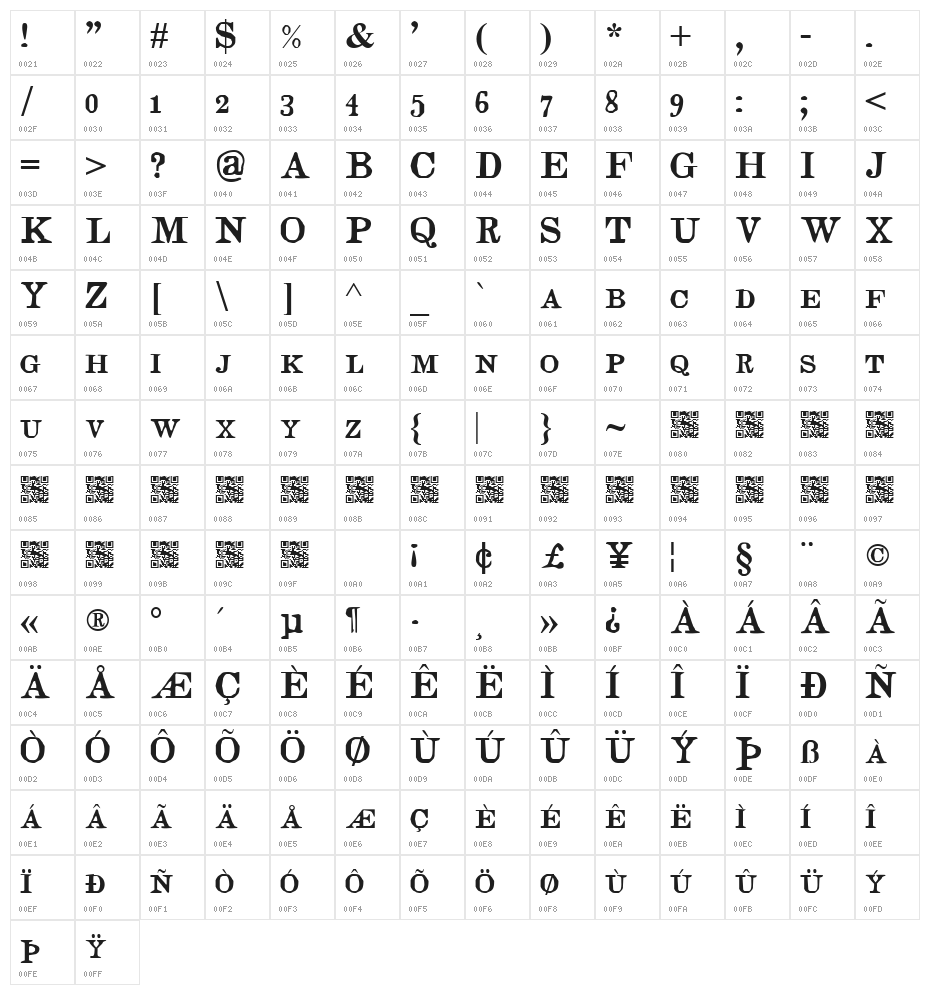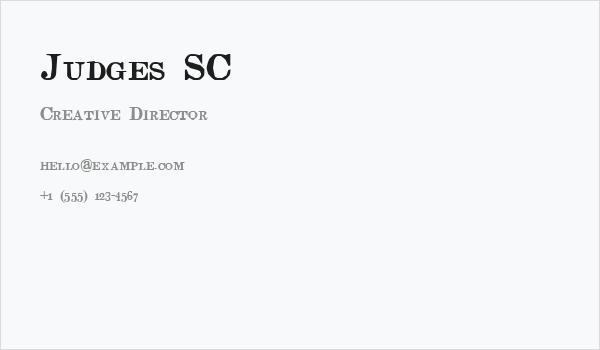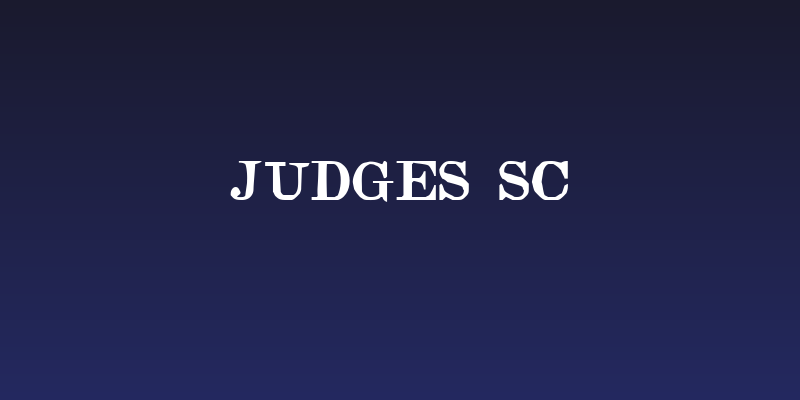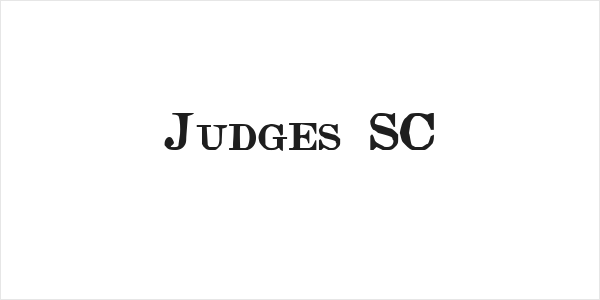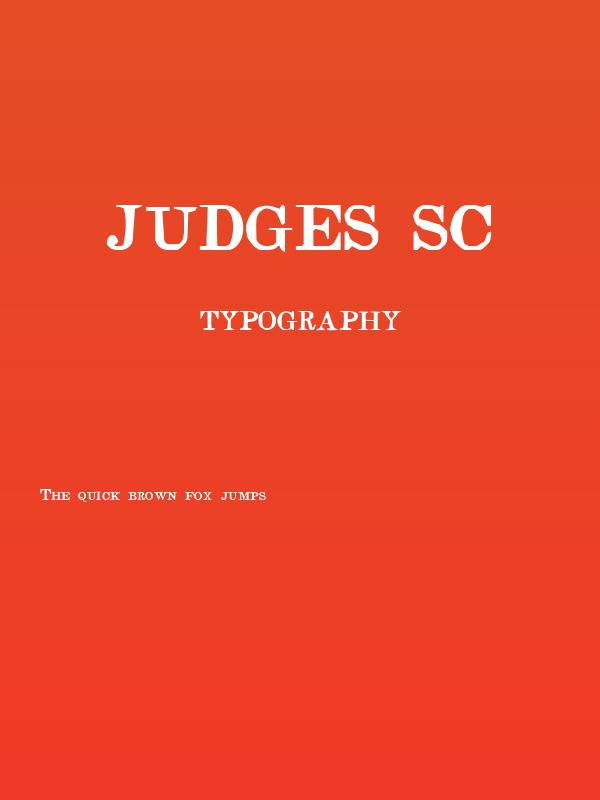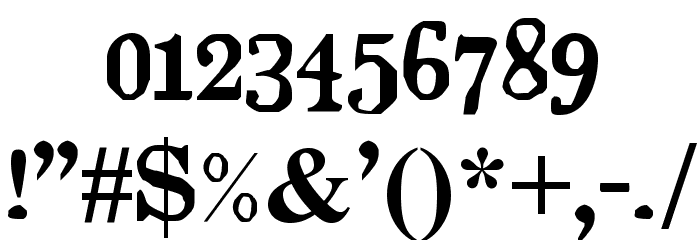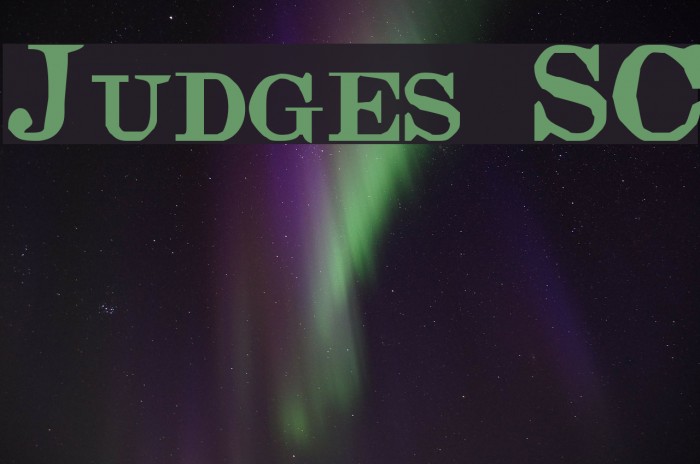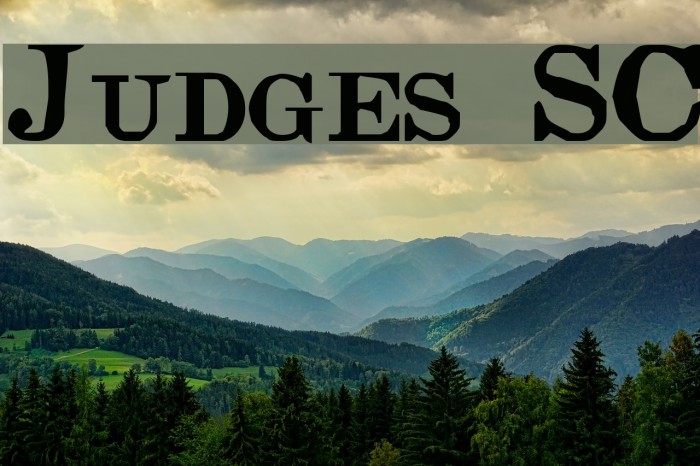
Judges SC Font
Judges SC Description
This font features a bold and authoritative serif style, characterized by strong, thick strokes and pronounced serifs that give it a classic and formal appearance. The uppercase letters are robust and commanding, while the lowercase letters maintain a consistent weight, ensuring readability and elegance. The numerals are distinct and clear, with a slightly condensed form that complements the overall design. Special characters are crafted with the same attention to detail, providing a cohesive look across all glyphs. This font's high contrast in stroke thickness enhances its legibility and impact, making it suitable for a variety of formal and professional applications.
| Use Case | Headlines, Logos, Formal documents |
| Proposed Projects | Ideal for use in formal documents, book covers, headlines, and branding materials where a classic and authoritative look is desired. |